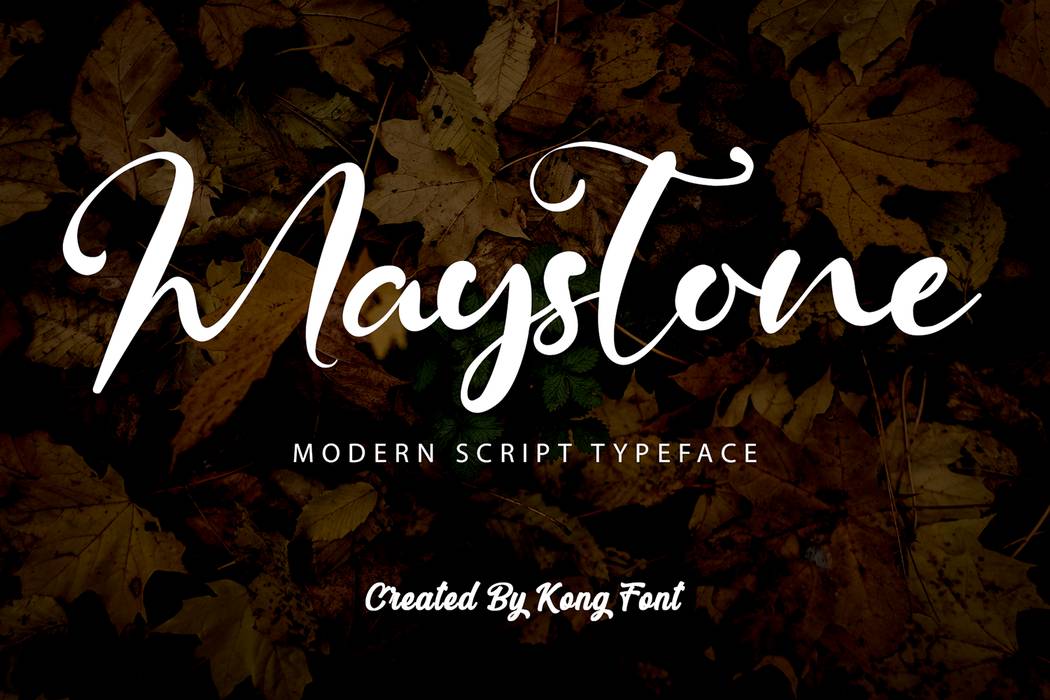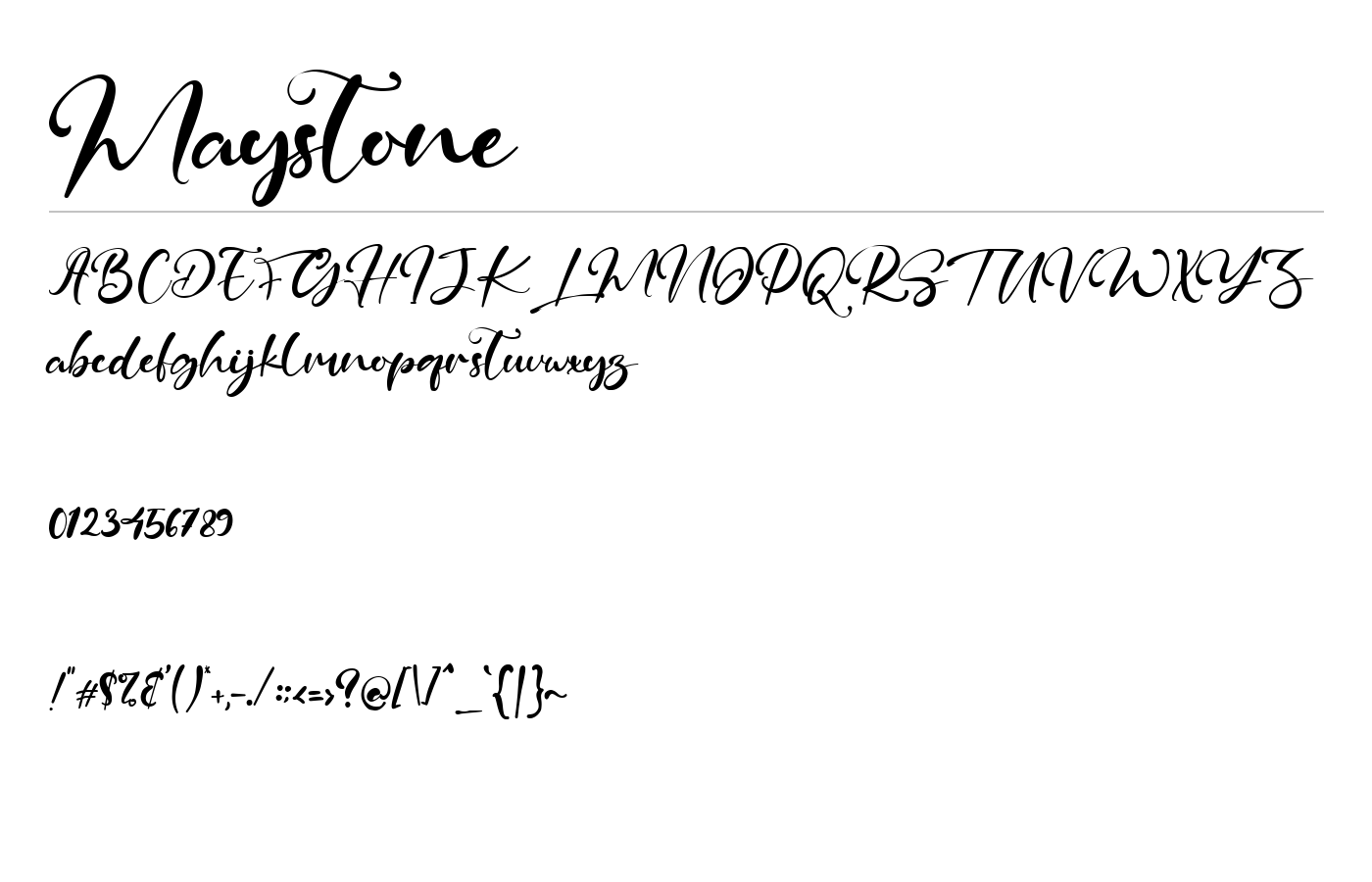
Maystone is an elegant script font featuring fluid, hand-drawn letterforms with lively strokes and graceful swashes. Its stylish, slightly casual appearance makes it perfect for branding, invitations, and creative projects that want to convey personality and charm. This font works especially well in logos and headlines where a sophisticated yet approachable touch is desired.
Maystone Font
About Maystone Font
| Font family | Maystone Font |